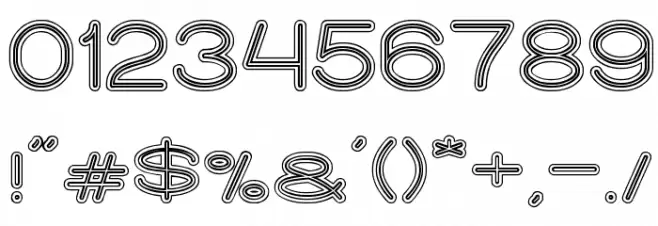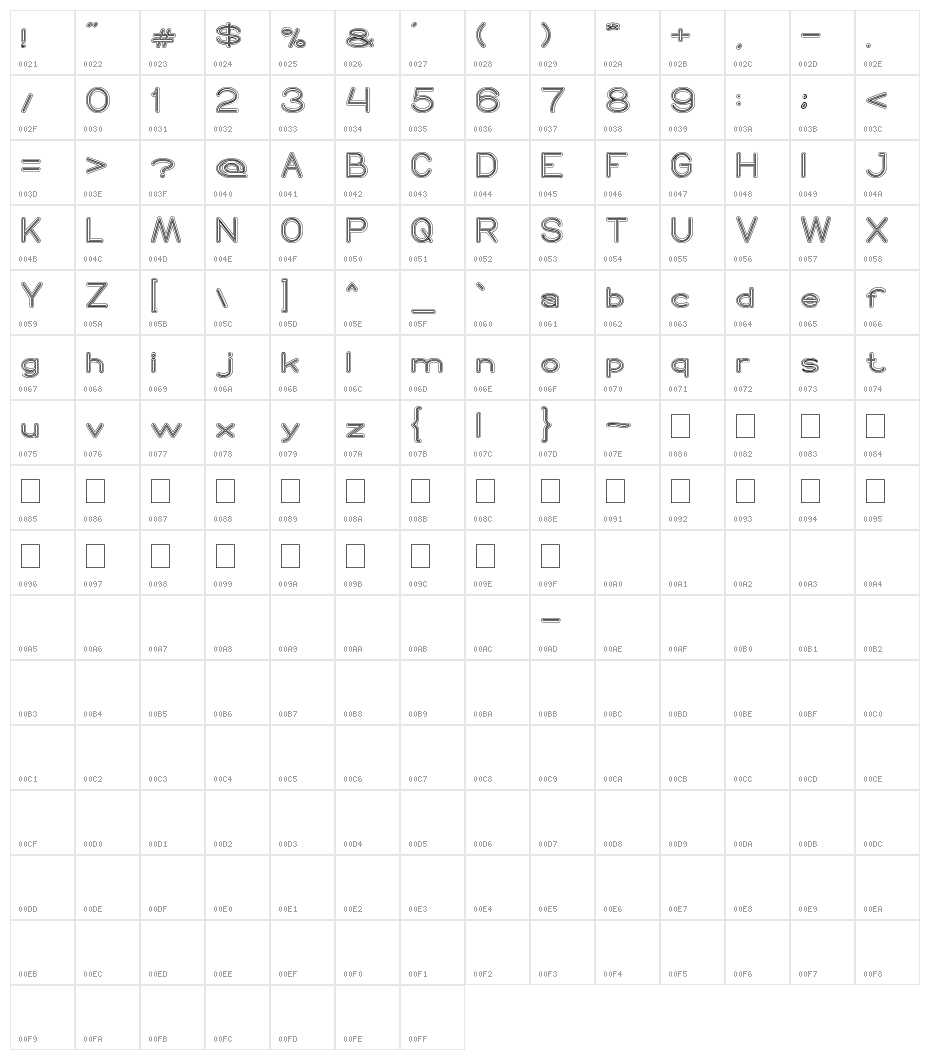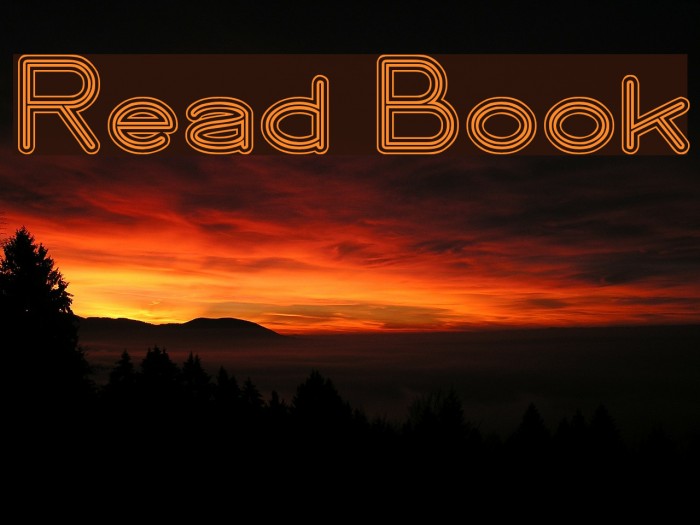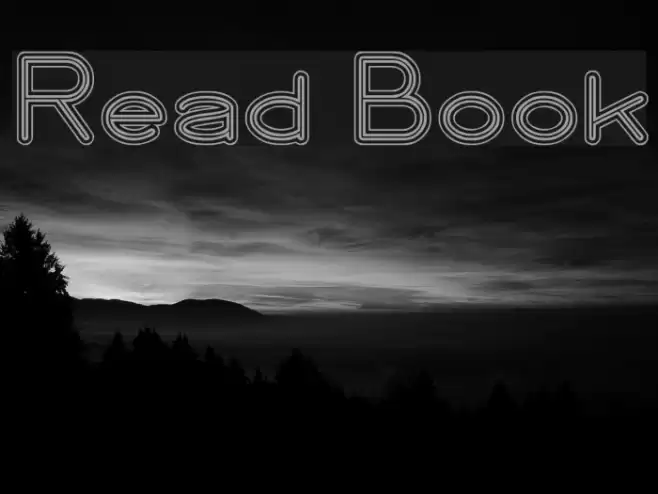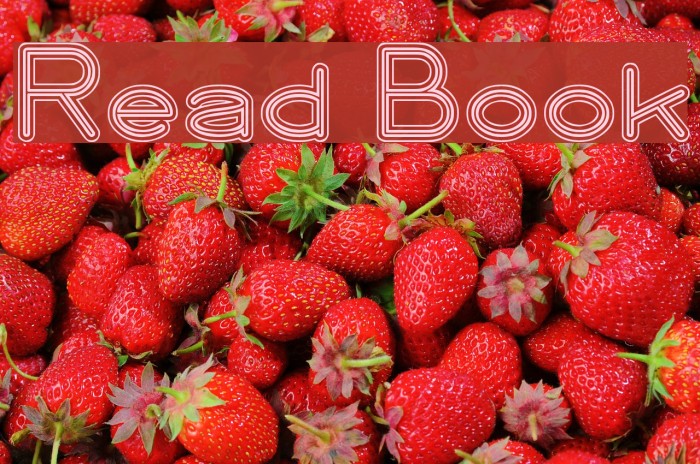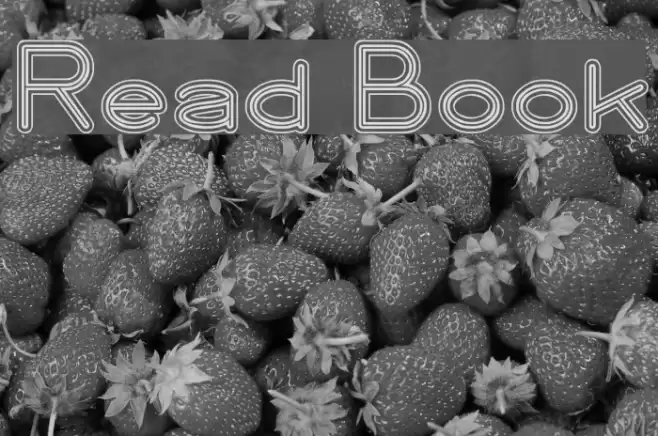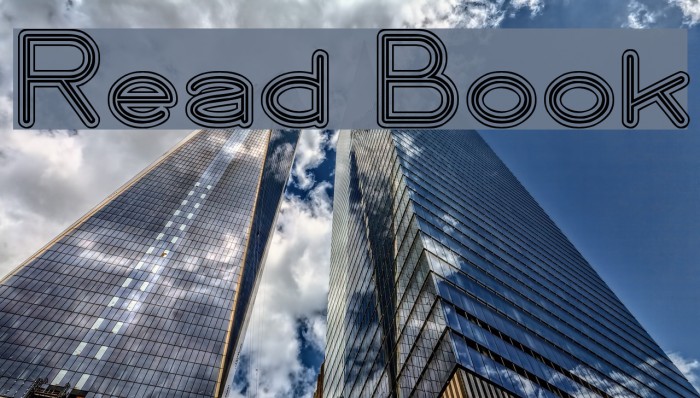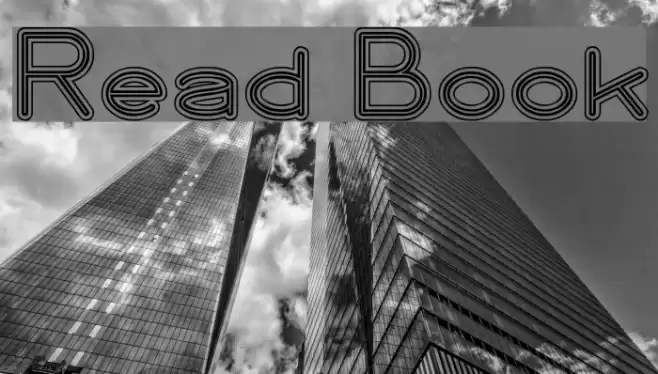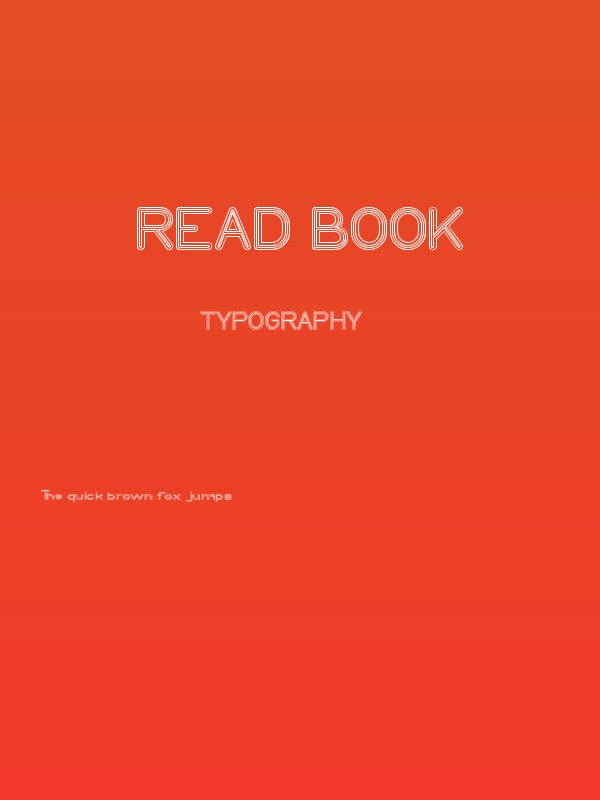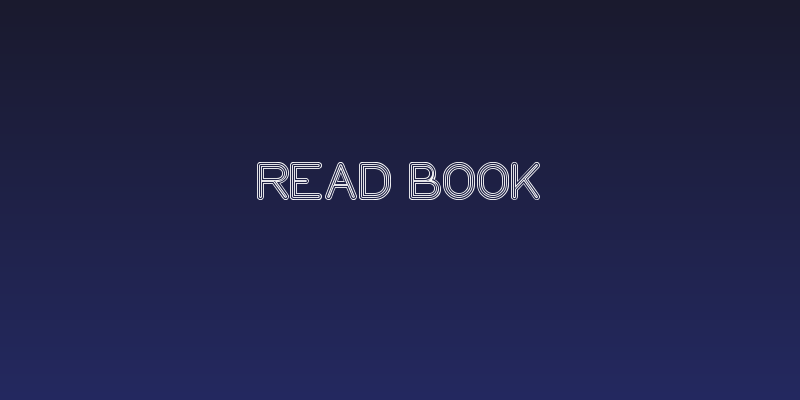
Read Book Font
Read Book Description
This font features a playful and modern design with a double-outline style that gives it a unique and eye-catching appearance. The characters are rounded and smooth, providing a friendly and approachable feel. The uppercase and lowercase letters maintain a consistent style, with the uppercase being slightly more prominent. Numbers and special characters are included, matching the overall aesthetic. The font's double-line structure adds depth and dimension, making it suitable for creative and decorative purposes. Its clean lines and balanced proportions ensure readability while maintaining a distinctive look.
| Proposed Projects | Ideal for posters, logos, children's books, and playful branding. |